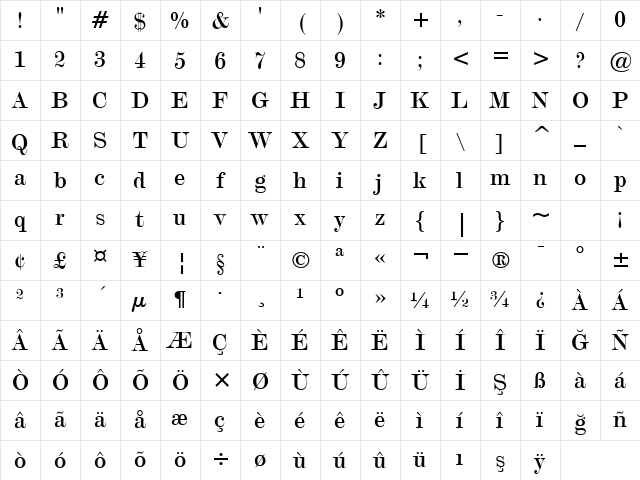
00480 Regular
Design Context for 00480
00480 is a composed and adaptable typeface that performs quietly and consistently across a wide range of design contexts.